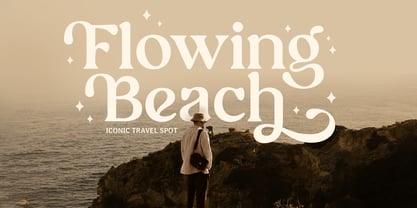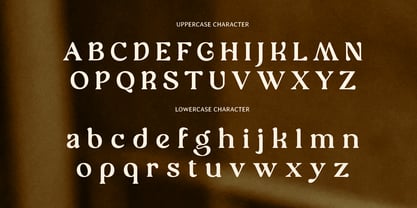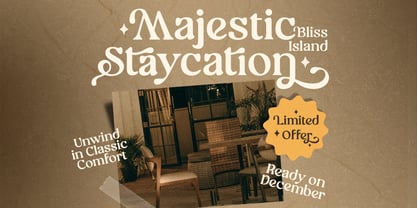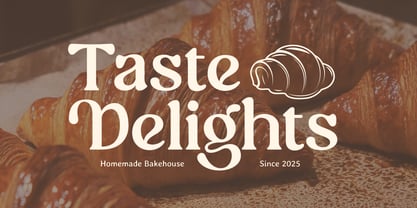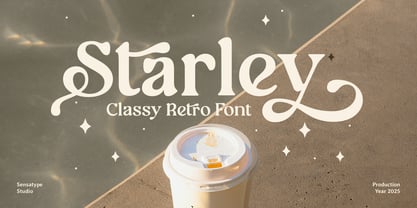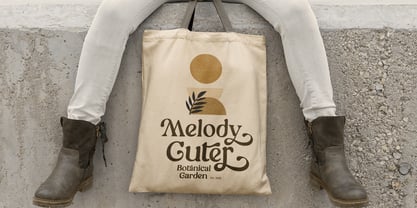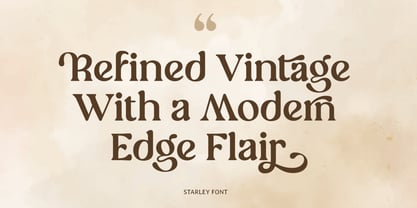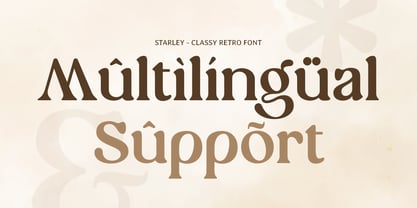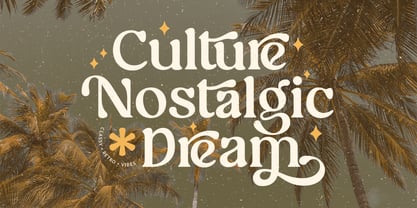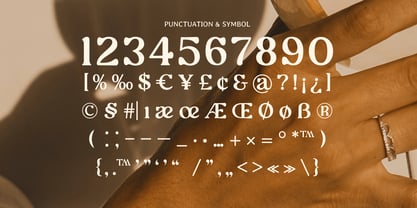
Starley
by Sensatype Studio
The Starley Font Family was designed by Zamroni Hamzah and published by Sensatype Studio. Starley contains 1 styles. More about this family
Starley is a classy retro vintage font that brings back the timeless charm of mid-century typography. With elegant curves, bold shapes, and nostalgic details, this typeface is perfect for creating designs that blend sophistication with a touch of retro flair.
Ideal for logos, packaging, posters, and advertising, Starley captures the warmth and character of handcrafted vintage lettering. Whether you’re designing for lifestyle brands, cafes, or editorial projects, it adds authenticity and personality to your compositions.
Its refined letterforms and smooth balance make Starley both expressive and readable — a perfect choice for designers seeking vintage inspiration with modern versatility.
Starley – Classy Retro Vintage Font Features
• Elegant retro typeface with vintage charm and balance
• Perfect for logos, packaging, posters, and branding
• Ideal for lifestyle, food, or nostalgic design themes
• Strong yet refined letterforms with handcrafted personality
• Uppercase, lowercase, numerals, and punctuation included
• OpenType features for enhanced typographic flexibility
Bring back the golden age of design with Starley – the ultimate classy retro vintage font for nostalgic, bold, and elegant creations.